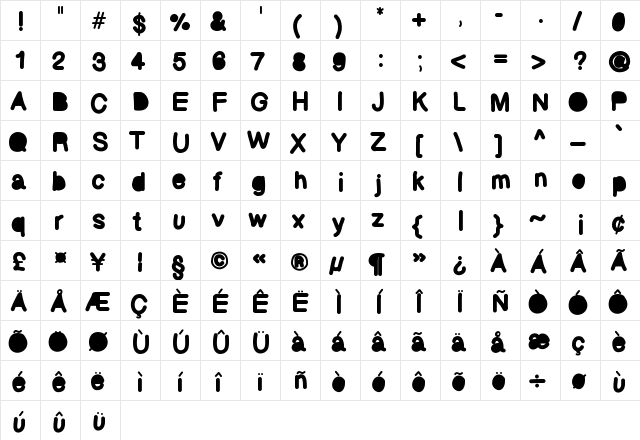
Bubbled Medium
Design Context for Bubbled Typeface
Bubbled trades formality for fun, with bouncy, characterful letterforms that bring warmth and energy to any project.
Font Pairing: Pairs well with a rounded or humanist sans for body copy, maintaining the friendly tone without relying on Bubbled to carry extended reading.
Pro Tip: Use Bubbled at larger display sizes where its expressive character can land. Pair with a clean, simple sans for body copy to maintain readability.